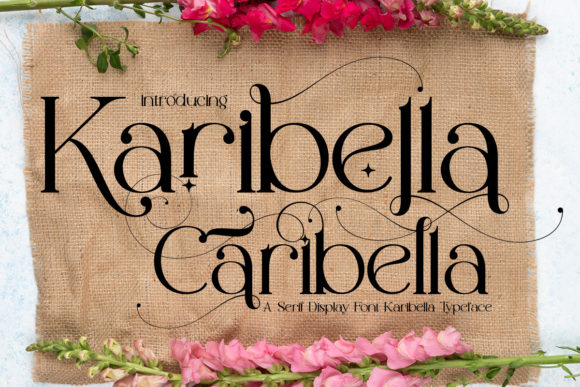
Introducing Karibella Font, the epitome of elegance and sophistication in the world of typography. This captivating serif font, meticulously crafted by jehansyah251, is an absolute delight for any design enthusiast seeking to create visually stunning wedding invitations, signage, logos, branding materials, and more. Karibella's timeless beauty transcends trends, making it a versatile choice for various projects, from classic to contemporary designs.
With its delicate curves, flowing lines, and intricate details, Karibella Font exudes a timeless charm that adds a touch of refinement to any design. Its PUA encoding allows effortless access to a treasure trove of glyphs and swashes, empowering you to unleash your creativity and add a unique flair to your projects. Imagine the awe-inspiring wedding invitations you can create, where Karibella's graceful characters dance harmoniously across the page, capturing the essence of love and commitment.
More than just a font, Karibella is an artistic expression that breathes life into your designs. Its elegant strokes evoke emotions, setting the perfect tone for romantic wedding stationery, enchanting logos, and captivating branding materials. With Karibella, you have the power to craft designs that tell a story, leaving an indelible mark on the hearts and minds of your audience.
Indulge in the beauty of Karibella Font and elevate your designs to new heights. Let its timeless elegance add a touch of magic to your wedding invitations, signage, logos, and more. Experience the transformative power of Karibella and create designs that captivate, inspire, and leave a lasting impression.